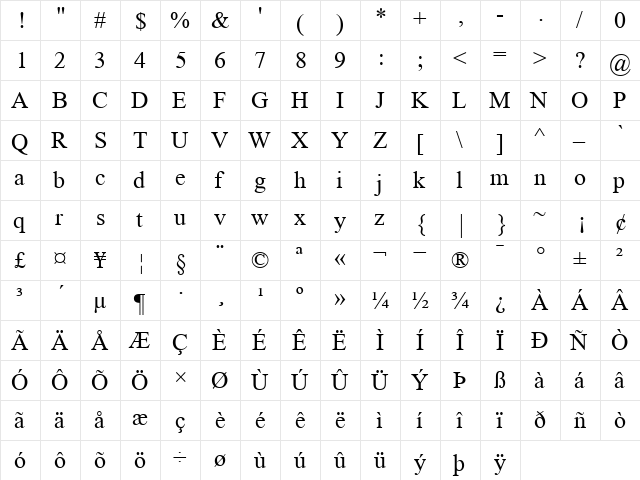
TimesNewRomanPSMT Regular
Design Context for TimesNewRomanPSMT Typeface
TimesNewRomanPSMT is a composed and adaptable typeface that performs quietly and consistently across a wide range of design contexts.